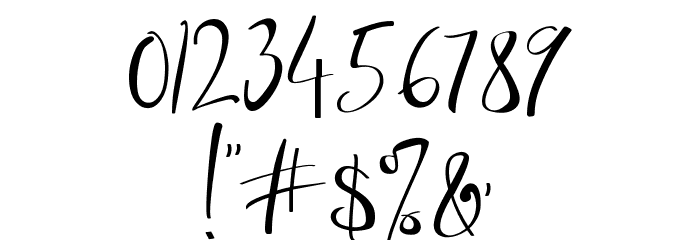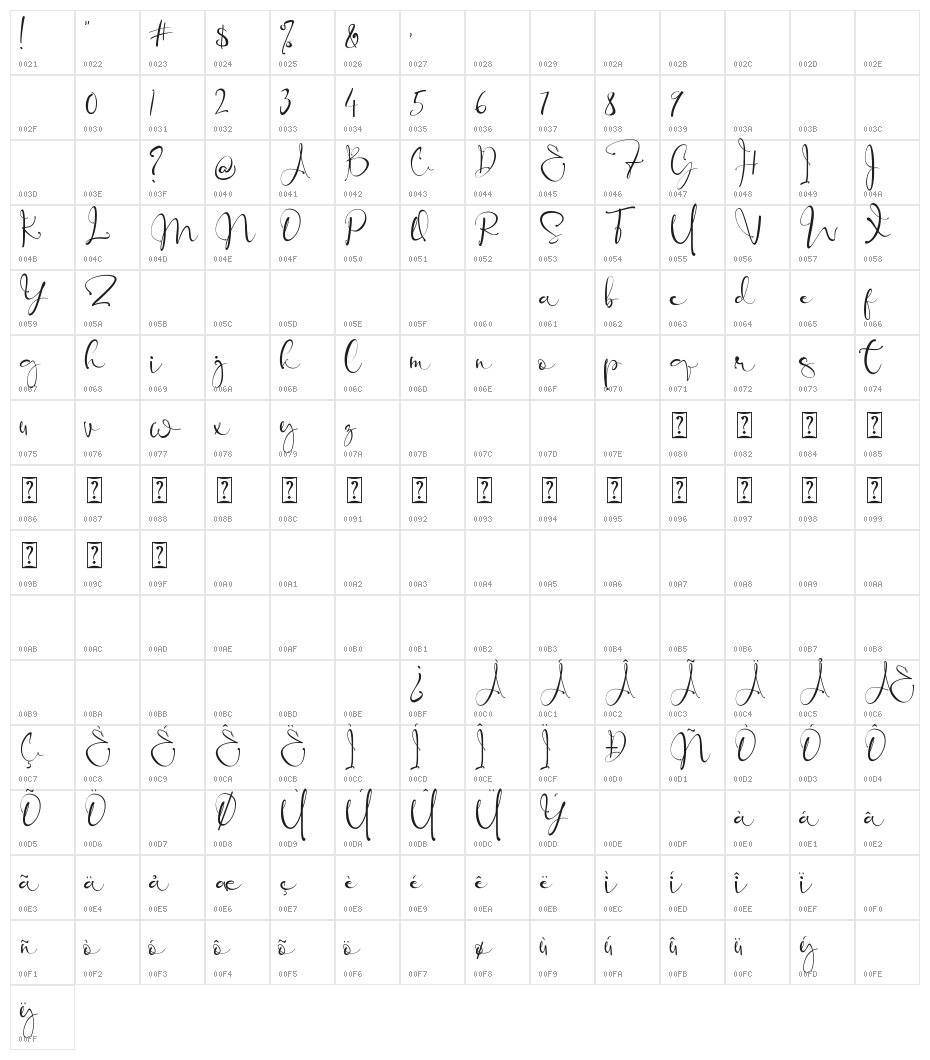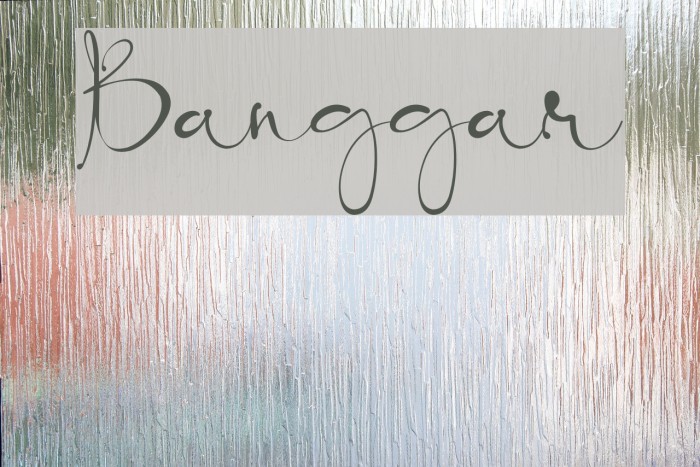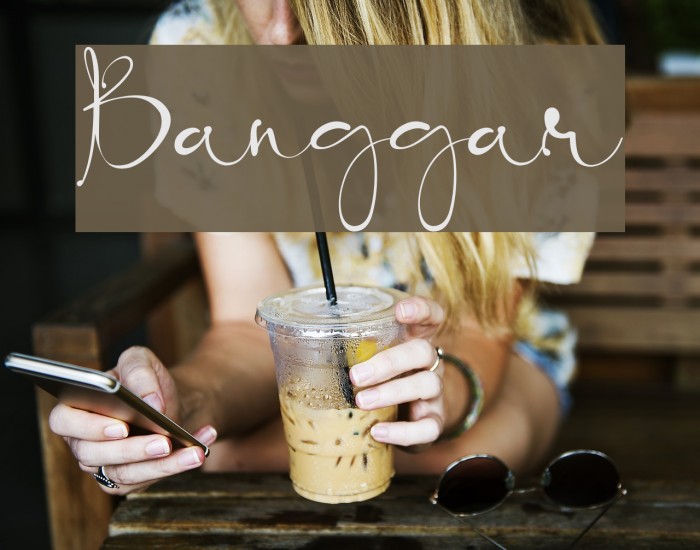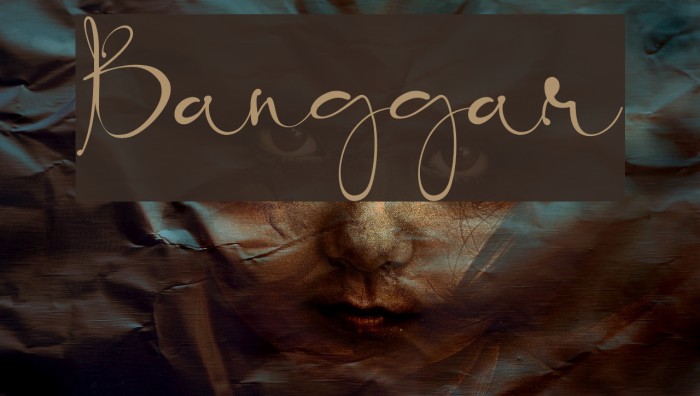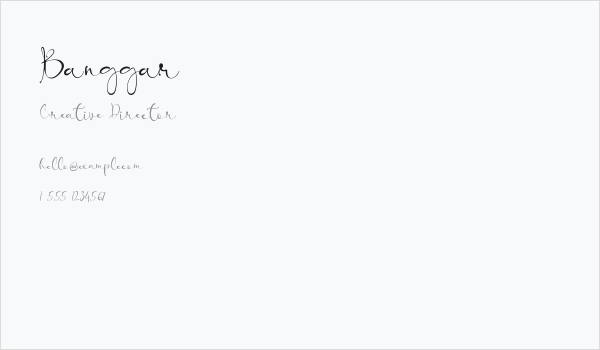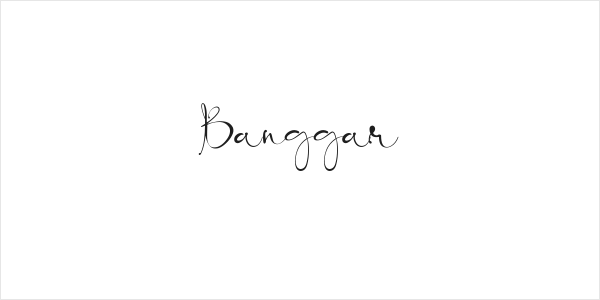
Banggar Font
Banggar Description
This font features an elegant and flowing script style, characterized by its cursive, handwritten appearance. The uppercase letters are ornate with loops and flourishes, giving them a sophisticated and artistic look. The lowercase letters maintain a consistent flow, with some characters extending below the baseline, adding to the font's graceful aesthetic. The numerals are distinct and maintain the same fluidity, ensuring readability while retaining the font's decorative nature. Special characters are designed to complement the overall style, with similar loops and curves. This font is ideal for projects that require a touch of elegance and creativity.